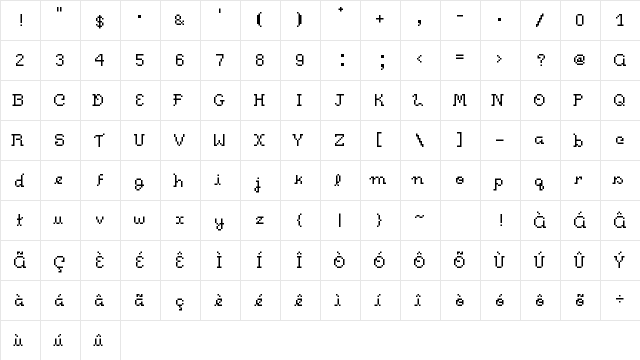
PixelitoCM Medium
Design Context for PixelitoCM Typeface
PixelitoCM celebrates the constraints of early digital type, turning pixel geometry into a distinctive and immediately recognisable style.
A natural choice for retro game titles, chiptune music branding, 8-bit UI, and digital nostalgia projects.
Pro Tip: Pair PixelitoCM with flat colour palettes and simple geometric UI elements to reinforce its digital aesthetic.